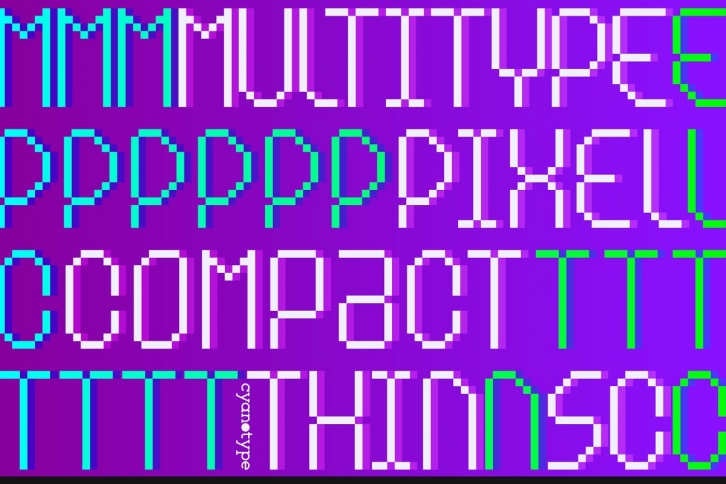
MultiType Pixel Compact Thin SC is an all display caps font inspired in retro gaming and computing vibes. Featuring three alternate sets, it offers support for Latin and Cyrillic characters and all the characters are PUA encoded.
MultiType Pixel Compact Thin SC works better at big sizes and display purposes such as branding, headlines, thumbnails, posters and animations. Have fun mixing all the styles in your projects.